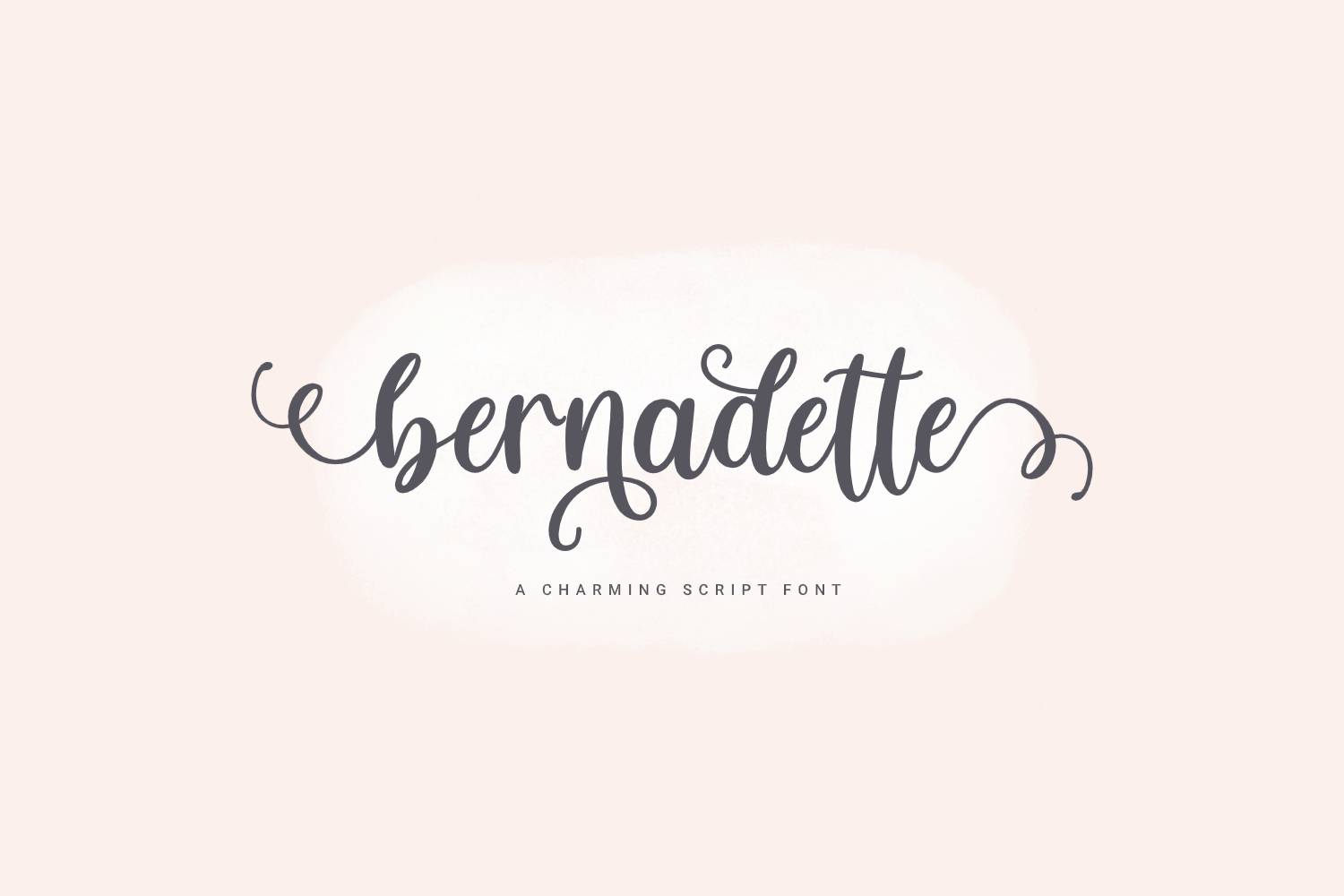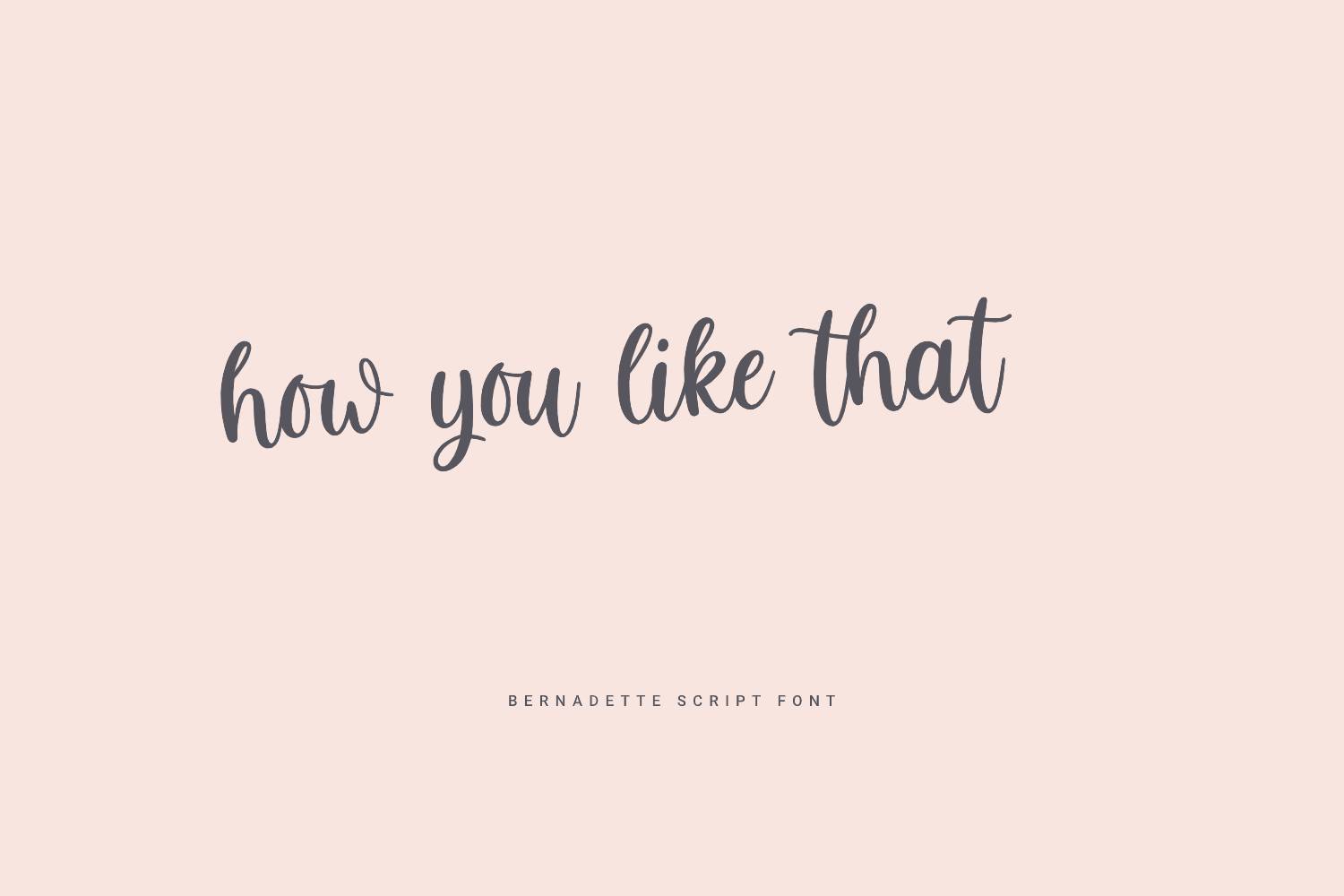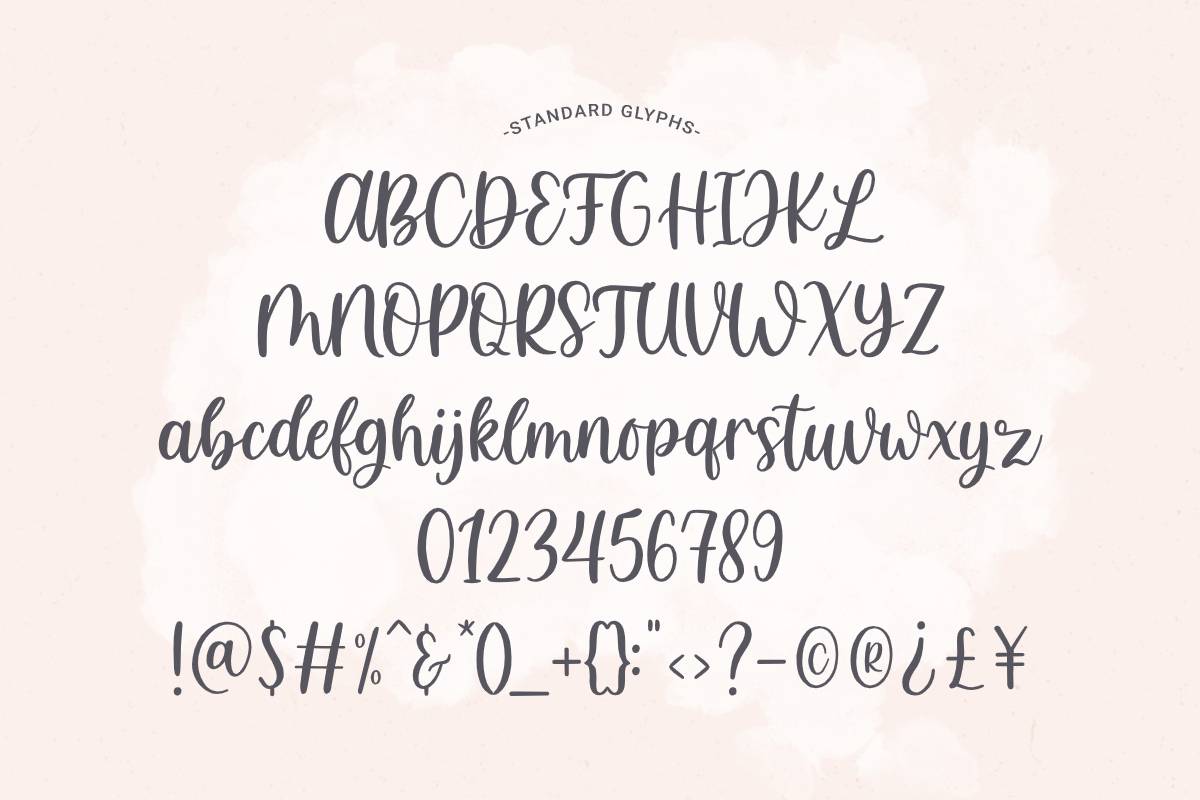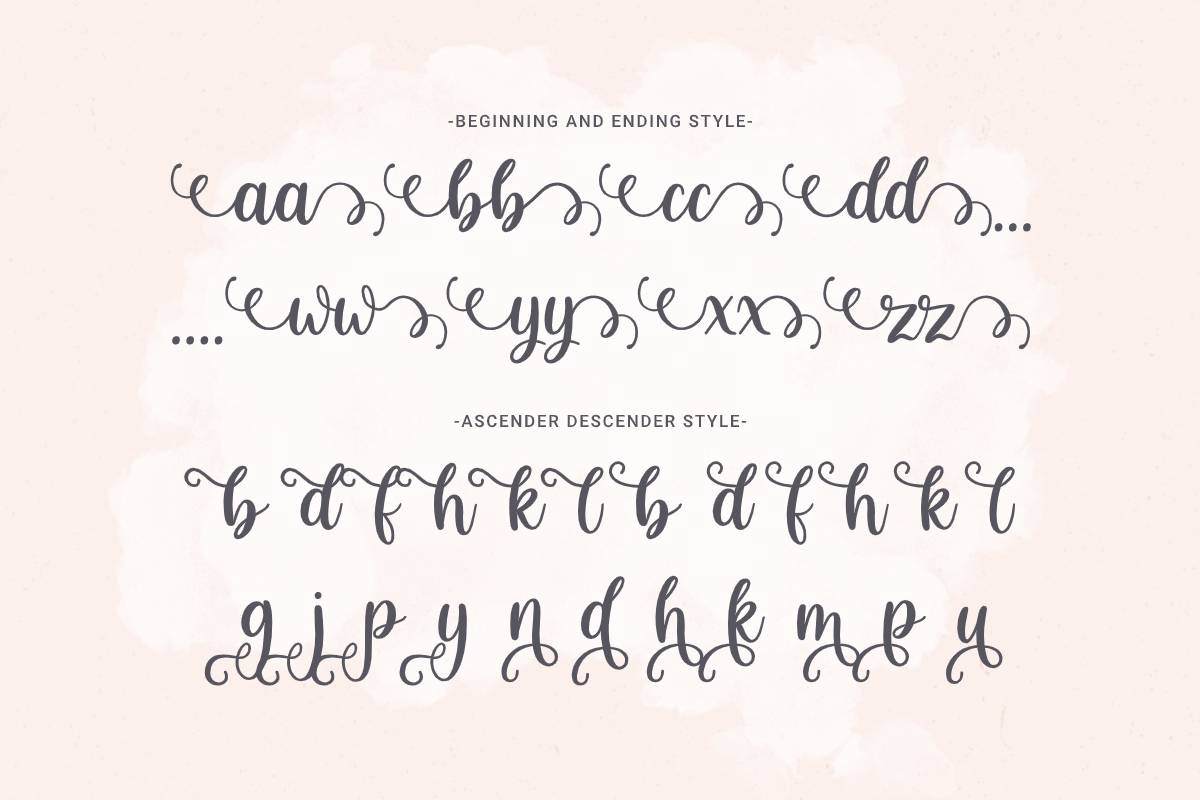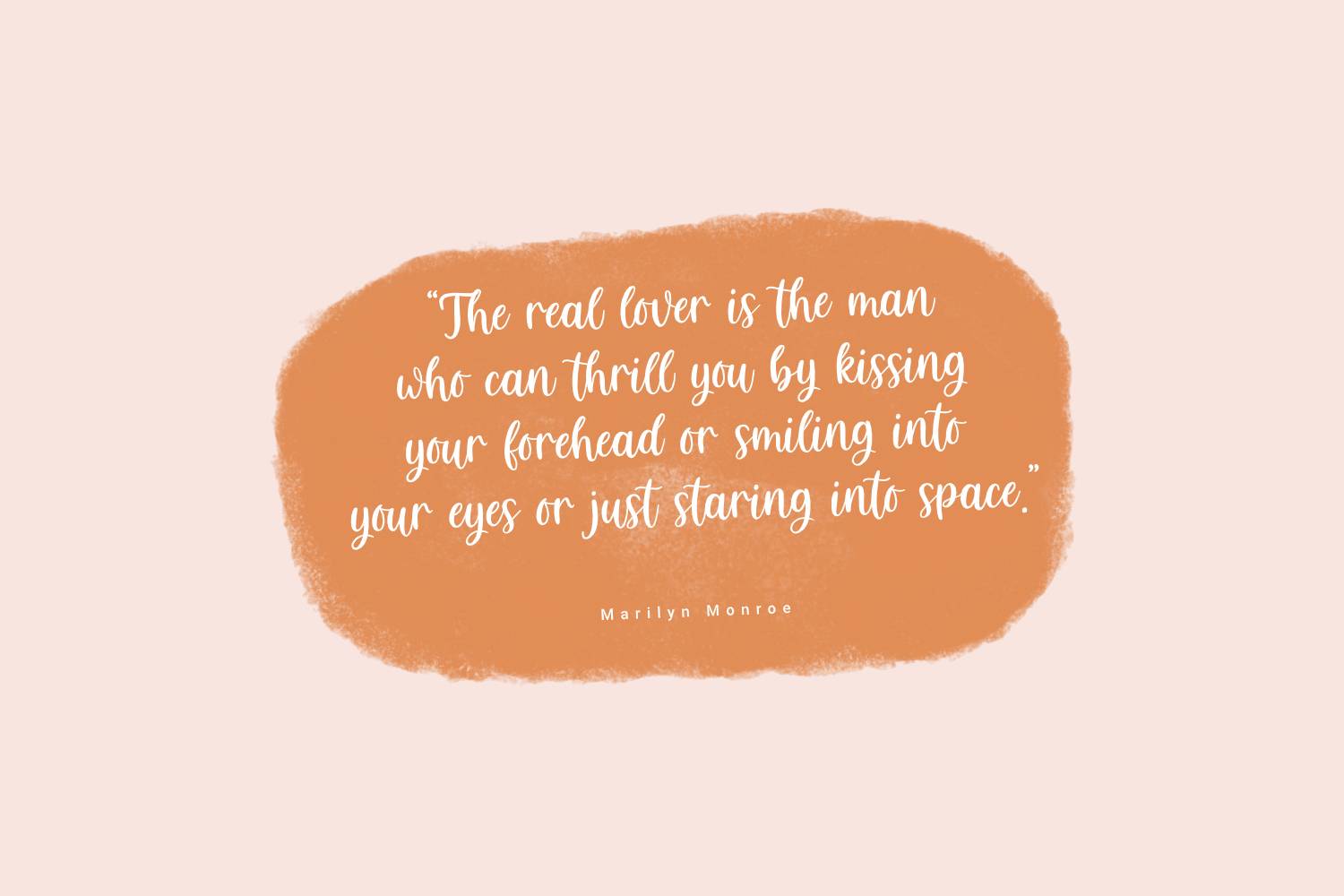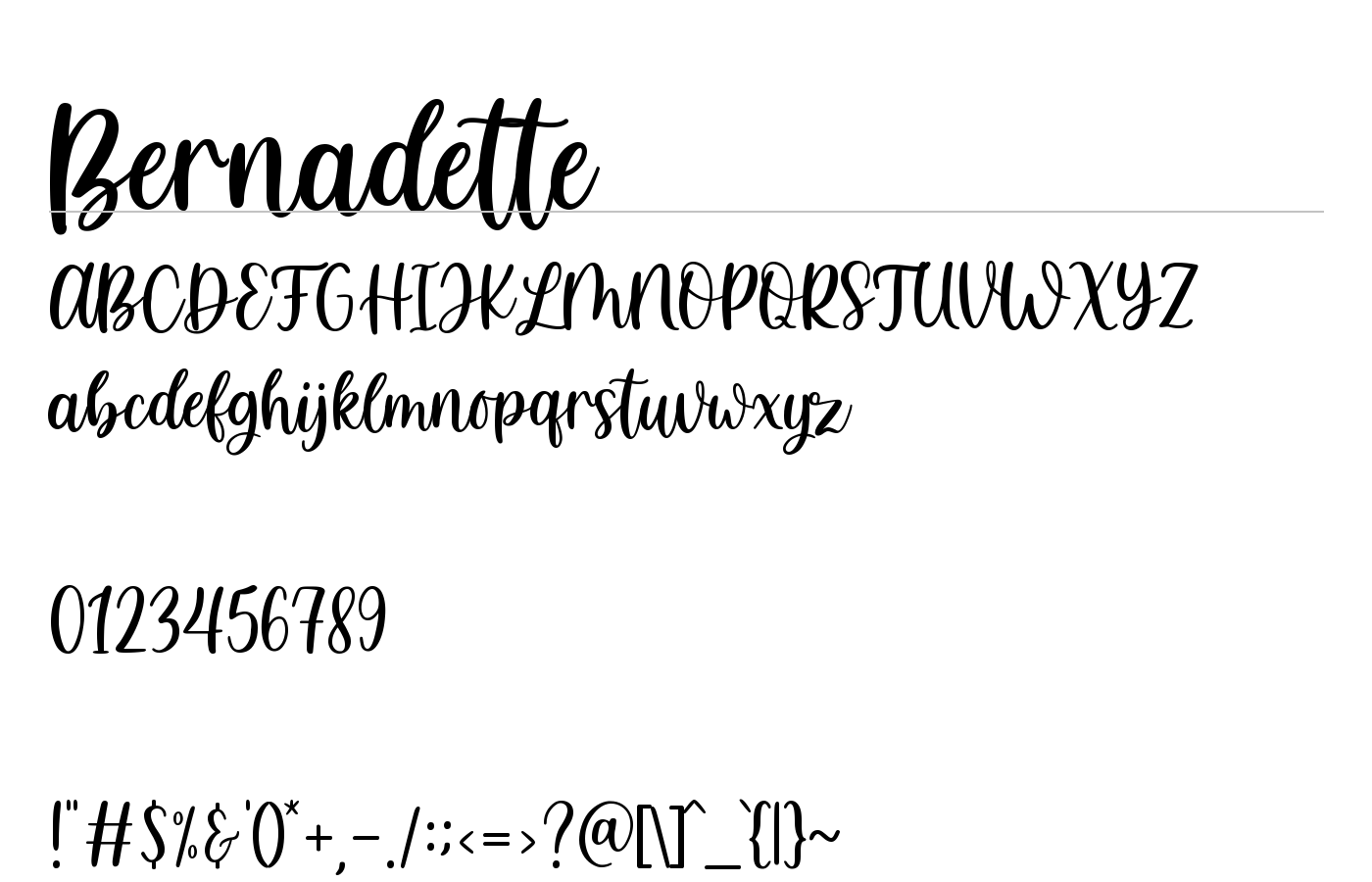
Bernadette is a playful and modern script font featuring smooth, flowing letterforms with a lively, hand-lettered feel. Its medium weight and slightly condensed style, combined with elegant loops and varying stroke widths, make it perfect for adding a personal and charming touch to invitations, branding, or social media design. This font works best in creative, feminine, or casual contexts where a friendly and approachable look is desired.
Bernadette Font
About Bernadette Font